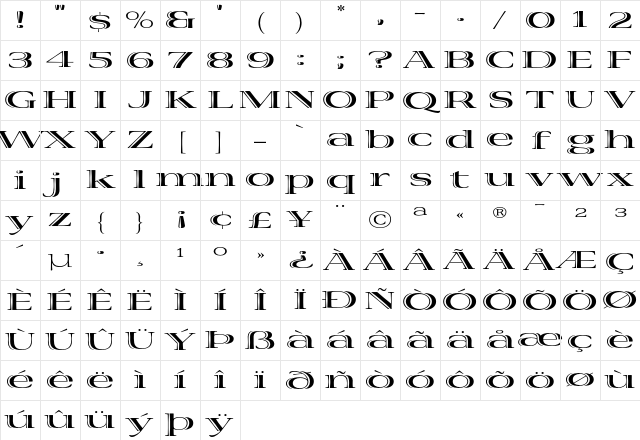
Viva Bold Extra Extended Free Font
Viva Bold Extra Extended
Style: Bold Extra Extended
Design Context for Viva
Viva is a composed and adaptable typeface that performs quietly and consistently across a wide range of design contexts. Its bold stroke weight gives it real presence on the page.